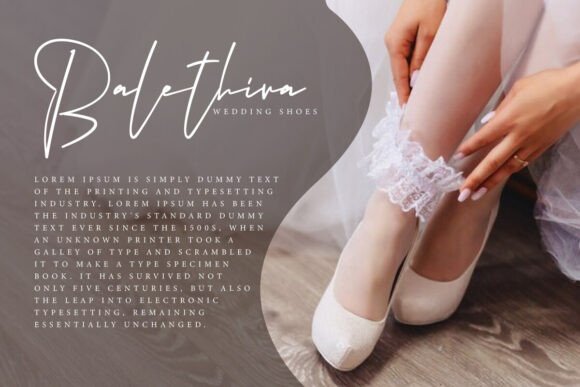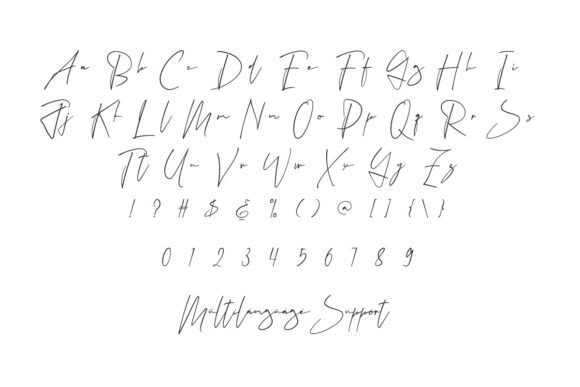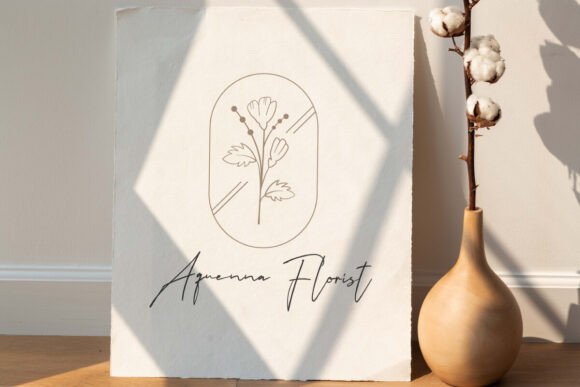
Introducing Favorite Signature Font: Elevate Your Designs with Elegance
Are you on the hunt for a font that adds a touch of sophistication and personality to your projects? Look no further than Favorite Signature Font, a stunning handwritten typeface that is sure to become your go-to for all your design needs. With its thin monoline brush strokes, this beautiful font exudes a clean and elegant look that is perfect for a wide range of applications.
What Makes Favorite Signature Font So Special?
Favorite Signature Font is more than just a font – it’s a design statement. Its unique signature style is crafted to make your projects stand out from the crowd, adding a level of refinement and poise that is sure to impress. Whether you’re working on a brand logo, brochure, business card, or any other design project, this font is guaranteed to elevate your work to new heights.
One of the best things about Favorite Signature Font is its versatility. Its clean and elegant design makes it suitable for a wide range of projects, including:
- Brand logos: Create a lasting impression with a custom logo that showcases your brand’s personality.
- Brochures: Add a touch of sophistication to your marketing materials.
- Business cards: Make a statement with a beautifully designed business card.
- Catalogs: Showcase your products in style with a catalog that exudes elegance.
- Certificates: Add a level of prestige to your certificates with a beautiful font.
- Covers: Create eye-catching covers for your books, magazines, or reports.
- Embossed designs: Add a tactile element to your designs with embossed text.
- Greeting cards: Create heartfelt greeting cards that showcase your personality.
- Invitations: Set the tone for your event with a beautifully designed invitation.
- Labels: Add a touch of elegance to your product labels.
- Mockups: Create stunning mockups that showcase your design skills.
- Price tags: Add a level of sophistication to your pricing strategy.
- Screen prints: Create beautiful screen prints that showcase your artistic side.
- Signage: Make a statement with eye-catching signage that showcases your brand.
- Signatures: Add a personal touch to your digital signatures.
- Stationery: Elevate your stationery with a beautiful font.
- Stickers: Create eye-catching stickers that showcase your personality.
- Titles: Add a touch of elegance to your titles and headings.
- Watermarks: Protect your images with a beautifully designed watermark.
- Websites: Add a level of sophistication to your website with a custom font.
Why Choose Favorite Signature Font?
With so many fonts to choose from, why should you choose Favorite Signature Font? Here are just a few reasons:
- Unique style: Favorite Signature Font has a unique signature style that sets it apart from other fonts.
- Clean and elegant design: Its thin monoline brush strokes give it a clean and elegant look that is perfect for a wide range of projects.
- Versatility: This font is suitable for a wide range of projects, from logos and brochures to business cards and websites.